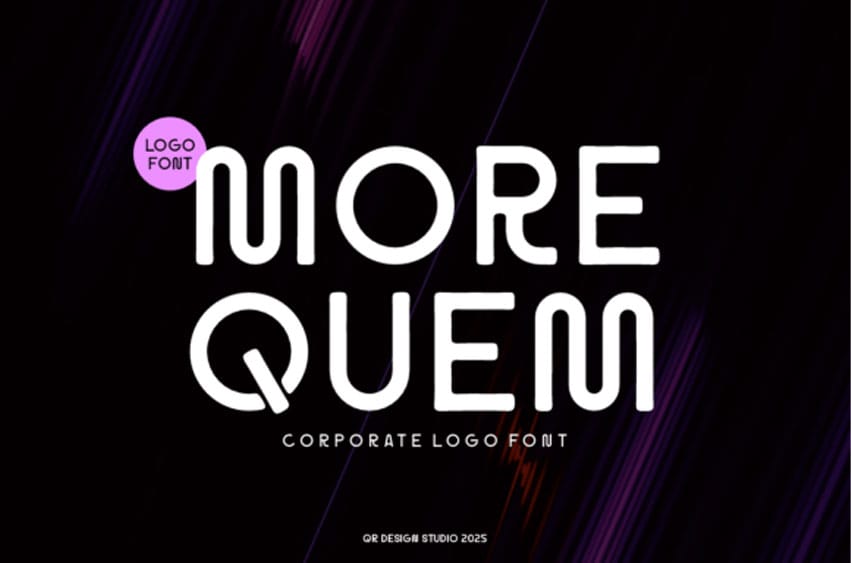
Morequem Font is a delicate, elegant, and flowing sans serif font. It has beautiful and well-balanced characters, and as a result, it matches a wide pool of designs.